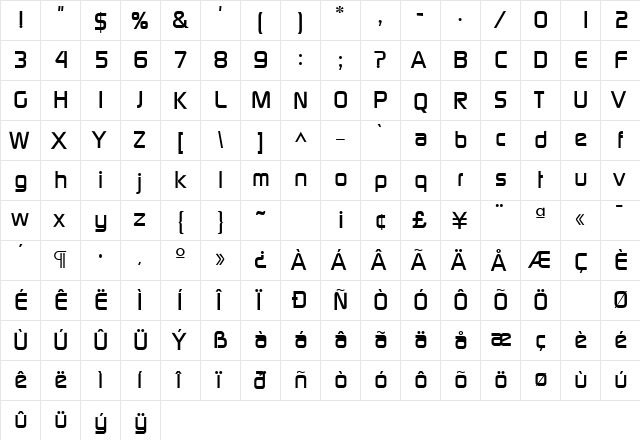
DicotMedium Regular
Design Context for DicotMedium Typeface
DicotMedium offers clean, dependable letterforms without strong stylistic allegiance, making it a practical choice for designers who need flexibility.